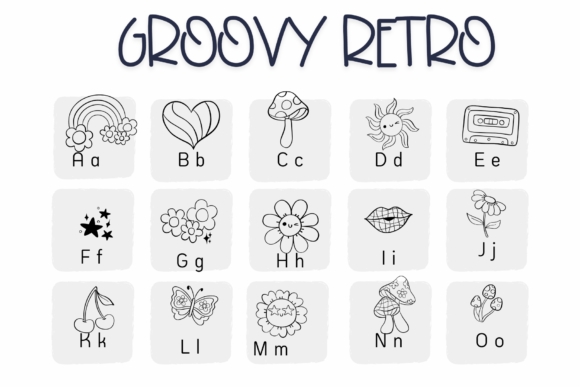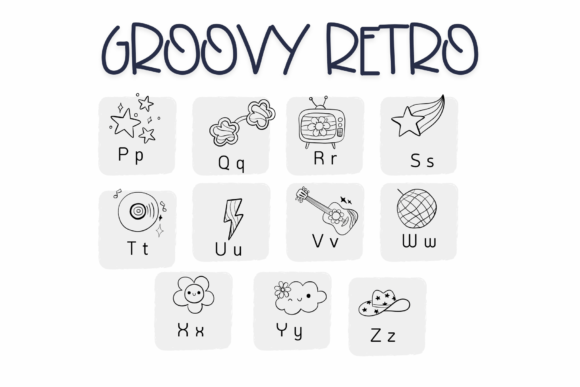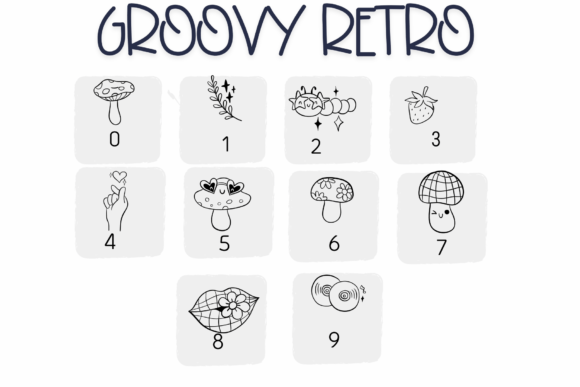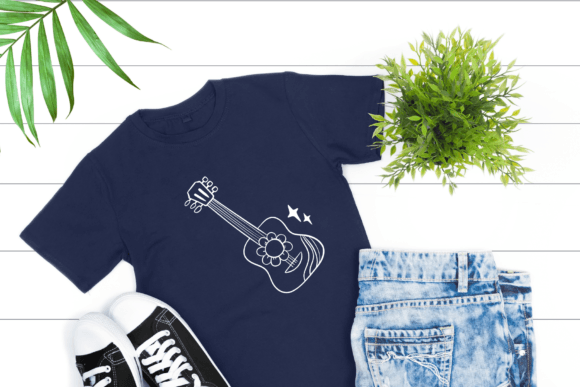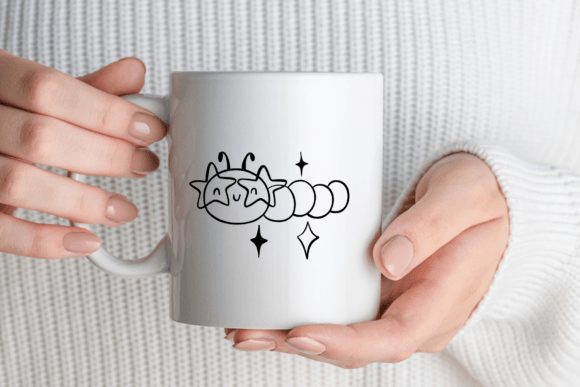
Groovy Retro Font: Elevate Your Creative Projects with a Vintage Twist
Are you on the hunt for a font that adds a dash of nostalgia and playfulness to your creative projects? Look no further than the Groovy Retro Font! This dingbats font, with its unique sketch style theme, is the perfect addition to take your designs to the next level. Whether you’re working on wedding invitations, DIY crafts, decorations, logos, or any other creative endeavor, Groovy Retro Font is sure to bring a touch of vintage charm.
What Makes Groovy Retro Font Special?
Groovy Retro Font stands out from the crowd with its distinctive sketch-style illustrations. This dingbats font is meticulously crafted to provide you with a wide range of graphical elements that can be used to enhance your projects. From decorative borders and frames to icons and shapes, Groovy Retro Font offers a plethora of creative possibilities.
The versatility of Groovy Retro Font is one of its most appealing features. Here are just a few examples of how you can use this fantastic font in your projects:
- Wedding Invitations: Create unique and personalized wedding invitations that set the tone for a vintage-themed wedding. Use the font’s decorative elements to add a touch of elegance and sophistication.
- DIY Crafts: Add a personal touch to your DIY crafts, such as handmade cards, gift tags, and scrapbooking projects. Groovy Retro Font’s sketch-style illustrations will give your crafts a distinctive and eye-catching look.
- Decorations: Use Groovy Retro Font to create decorative elements for parties, events, or even your home decor. From banners and garlands to wall art and signage, the possibilities are endless.
- Logos and Branding: Give your brand a unique and memorable identity with Groovy Retro Font. Use the font’s distinctive style to create logos, business cards, and other marketing materials that stand out from the crowd.
Why Choose Groovy Retro Font?
With so many fonts available, why should you choose Groovy Retro Font for your projects? Here are just a few compelling reasons:
- Unique Style: Groovy Retro Font offers a distinctive sketch-style theme that will set your projects apart from the rest.
- Versatility: Groovy Retro Font can be used in a wide range of projects, from digital designs to print materials.
- High-Quality: This font is meticulously crafted to ensure high-quality results, with crisp and clear lines that will look great in any project.
Tips for Using Groovy Retro Font
To get the most out of Groovy Retro Font, here are a few tips to keep in mind:
- Experiment with Different Sizes: Don’t be afraid to experiment with different font sizes to achieve the desired effect. Larger sizes can be used for headings and titles, while smaller sizes can be used for body text and details.
- Combine with Other Fonts: Groovy Retro Font pairs well with a variety of other fonts. Try combining it with a simple sans-serif font for a striking contrast.
- Use in Digital and Print Projects: Groovy Retro Font can be used in both digital and print projects. From social media graphics to business cards, this font is versatile enough to handle any project.
Groovy Retro Font is a fantastic addition to any designer’s or crafter’s toolkit. With its unique sketch-style theme and versatility, this dingbats font is sure to inspire creativity and take your projects to the next level. Whether you’re working on wedding invitations, DIY crafts, decorations, logos, or any other creative endeavor, Groovy Retro Font is the perfect choice. So why wait? Download Groovy Retro Font today and start adding a touch of vintage charm to your projects!